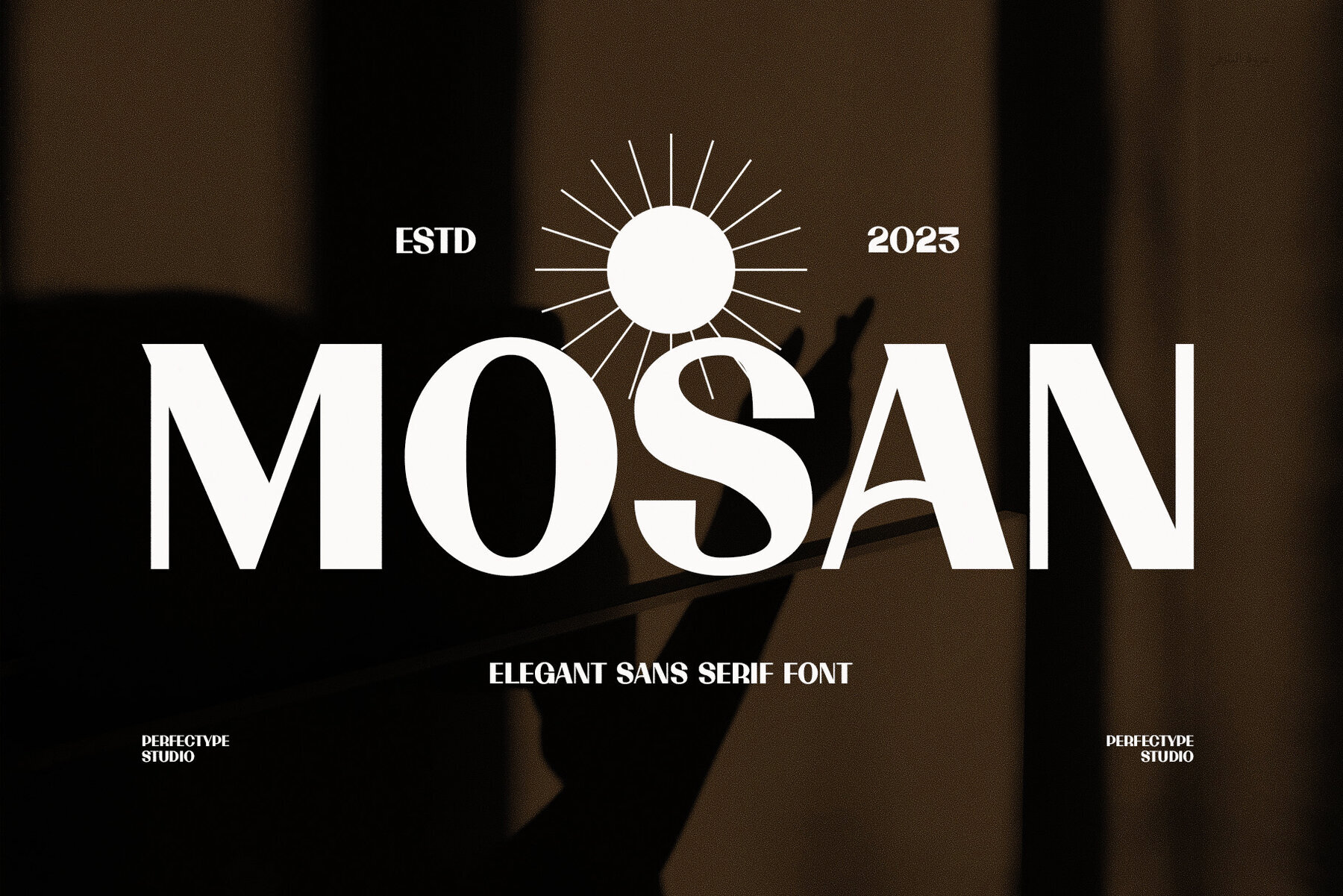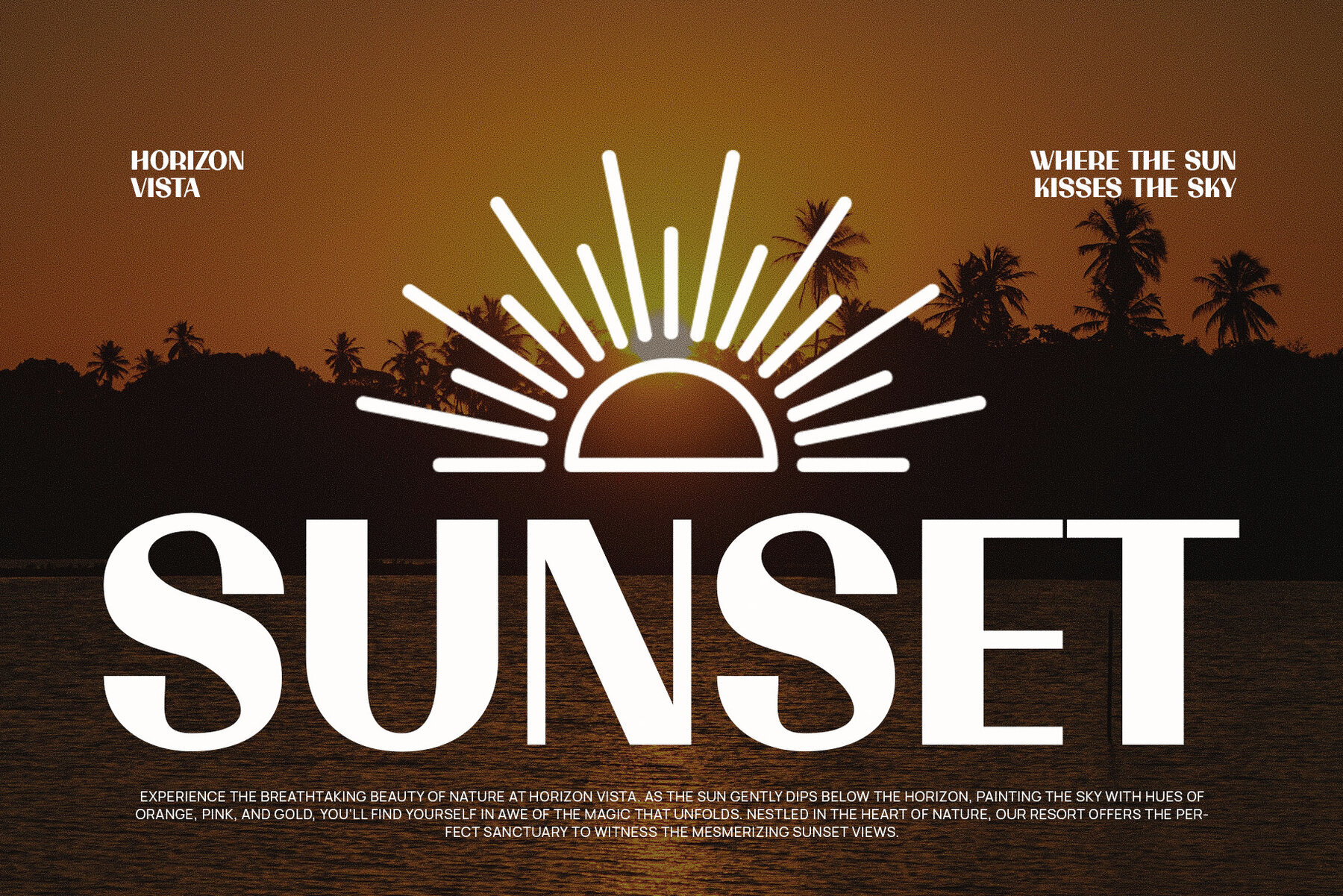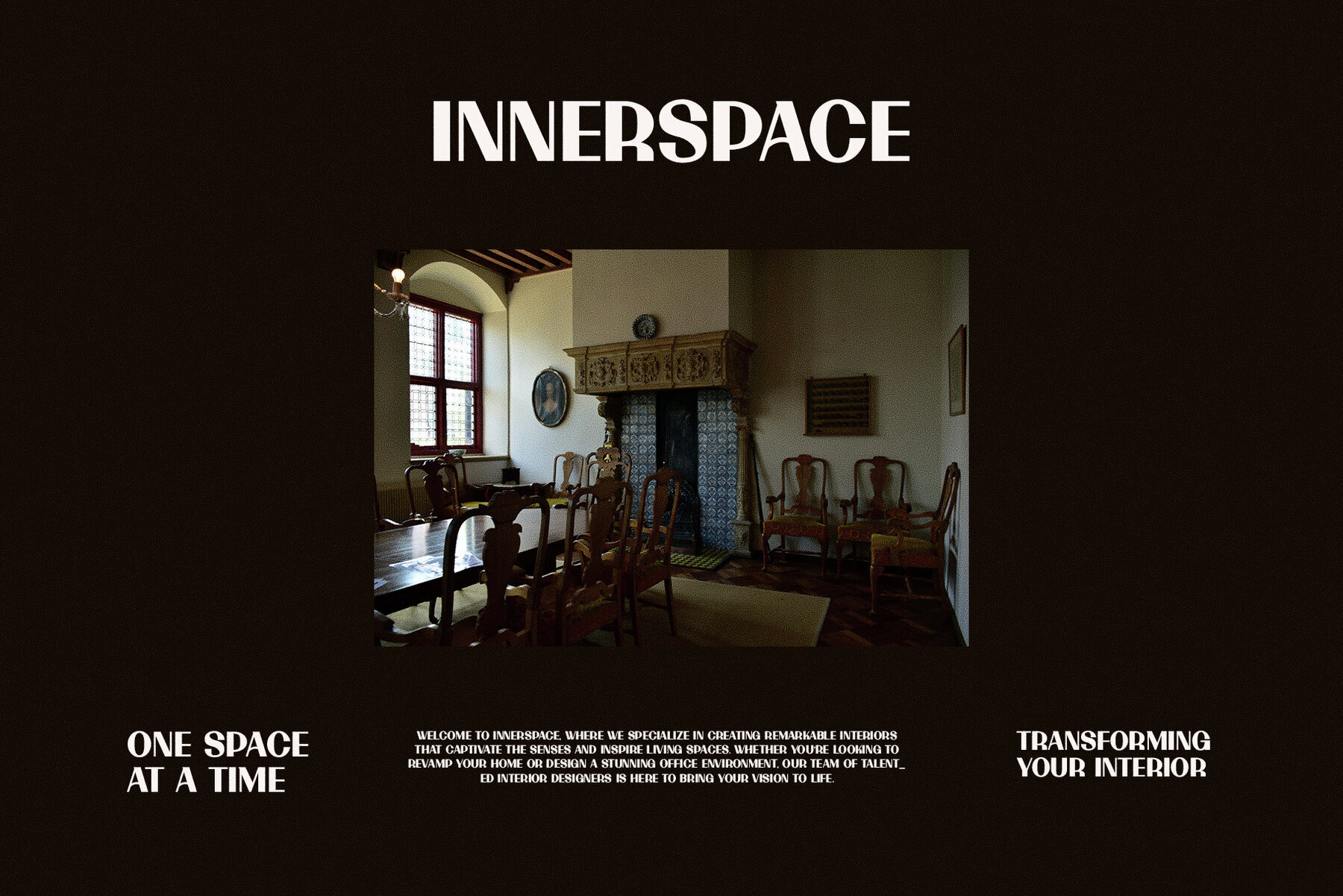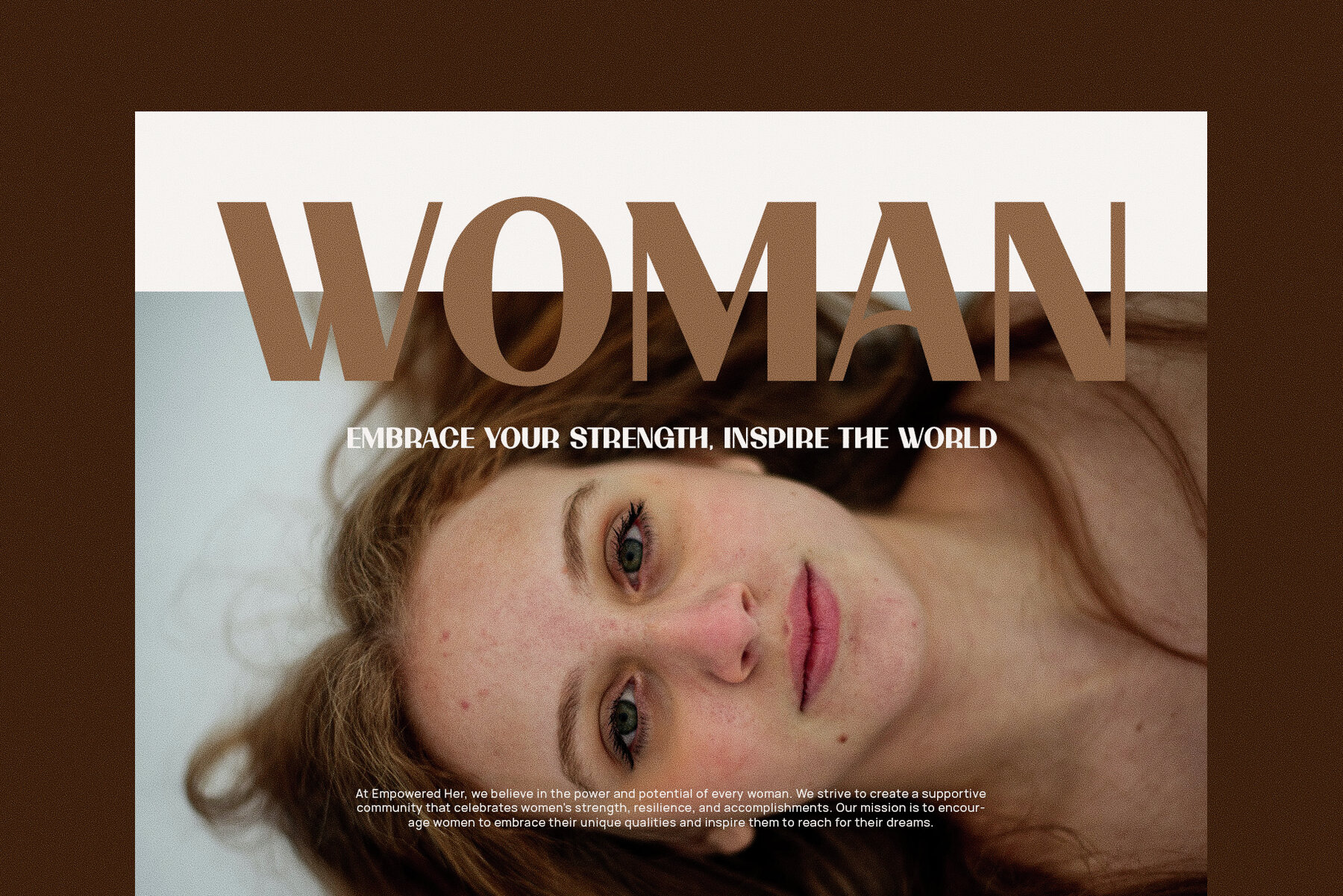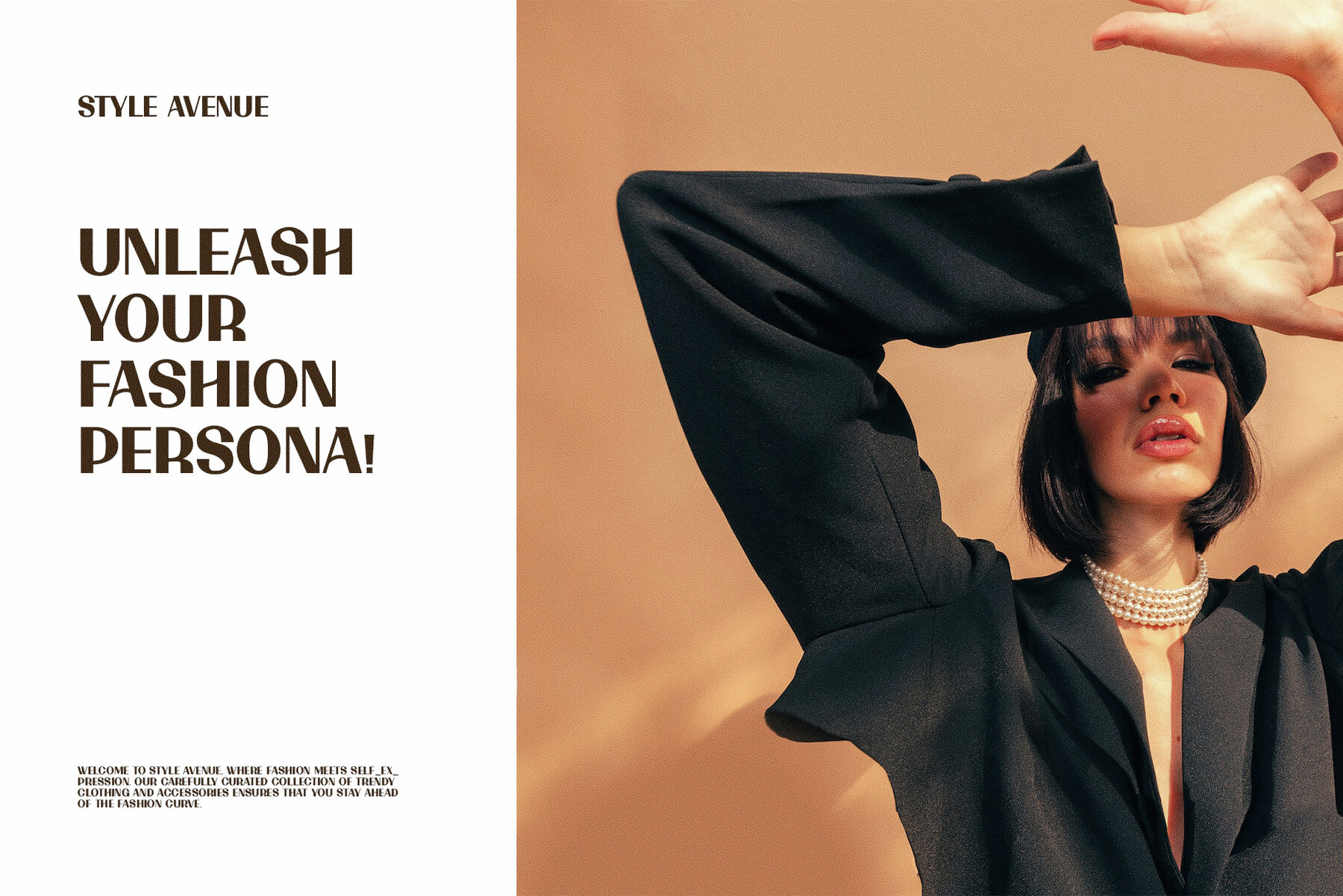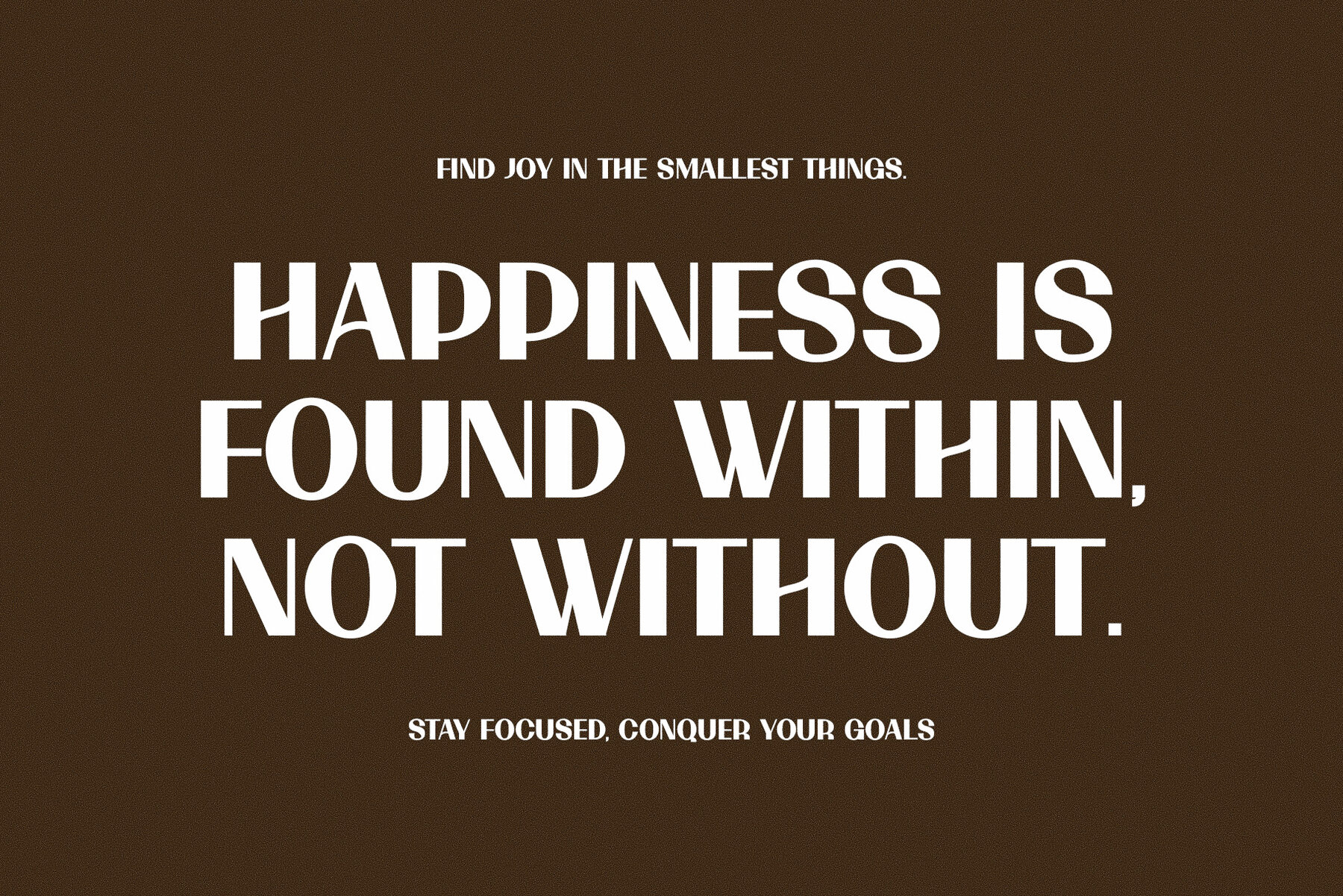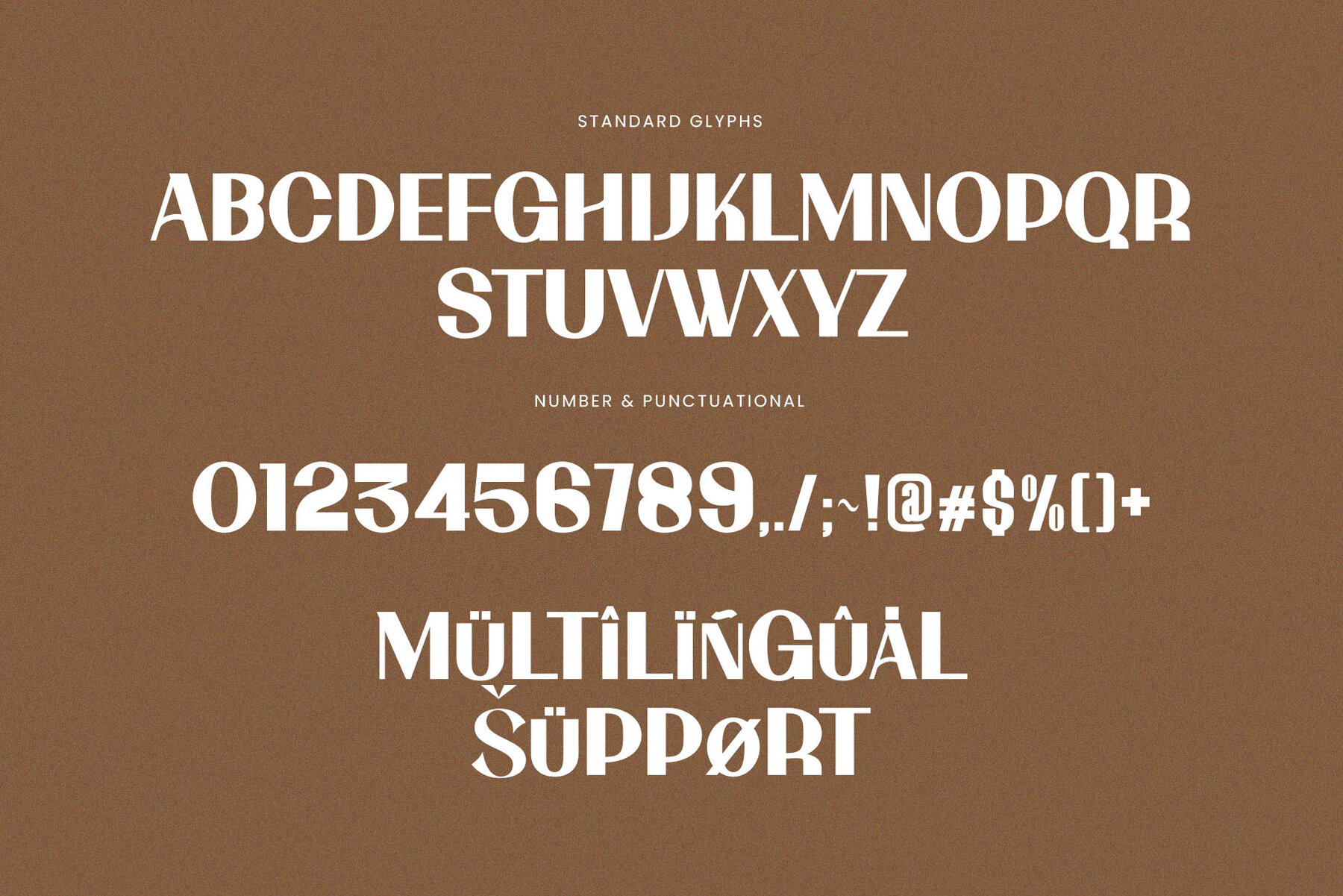
Mosan Font
Mosan Regular
Mosan is a beautifully crafted sans serif font that embodies a modern and elegant design. Its versatile style makes it the perfect choice for a variety of projects, including clothing, fashion, logos, branding, business cards, and t-shirts. For optimal results, using Adobe Illustrator or Adobe Photoshop is recommended. Should you have any inquiries, feel free to reach out for assistance.Mosan: Elegant Sans Serif Font for Modern Design